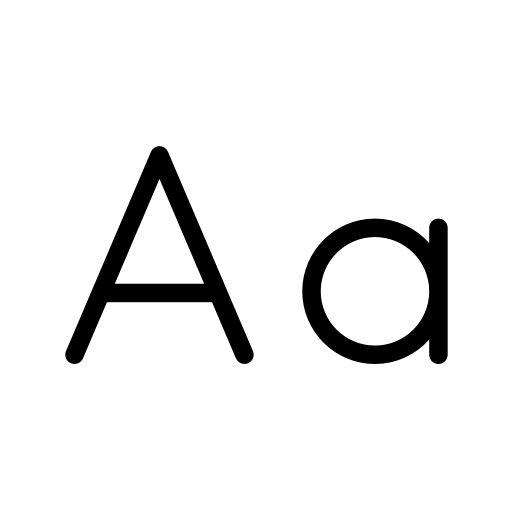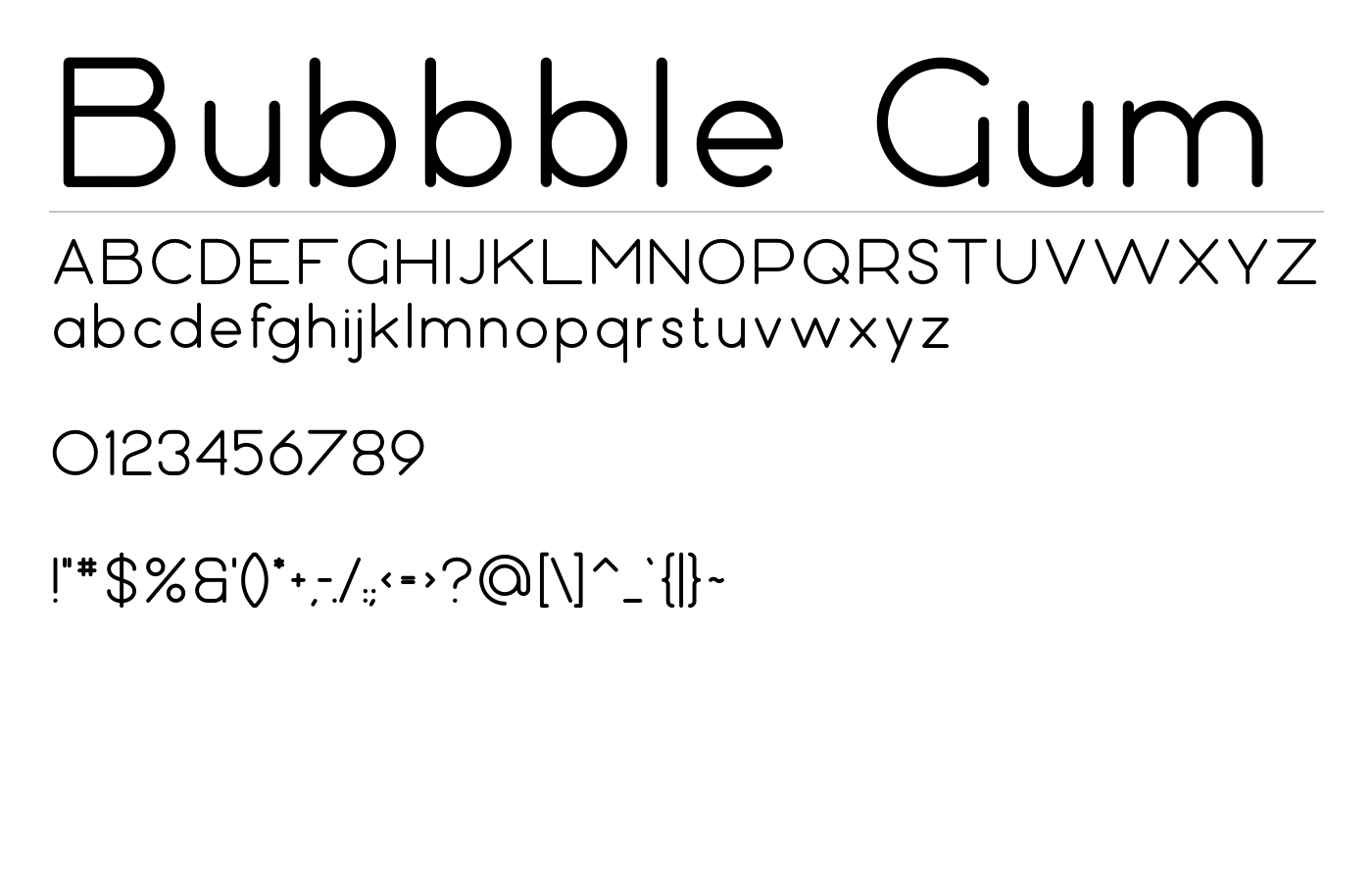
Bubble Gum is a clean, modern sans-serif font with a light weight and an airy, friendly feel. Its rounded geometric shapes and simple lines give it a playful yet elegant personality, making it perfect for contemporary branding, children's products, and websites that want to convey approachability and freshness. This font works well in headlines, logos, and casual editorial designs where clarity and charm are key.
Bubbble Gum Font